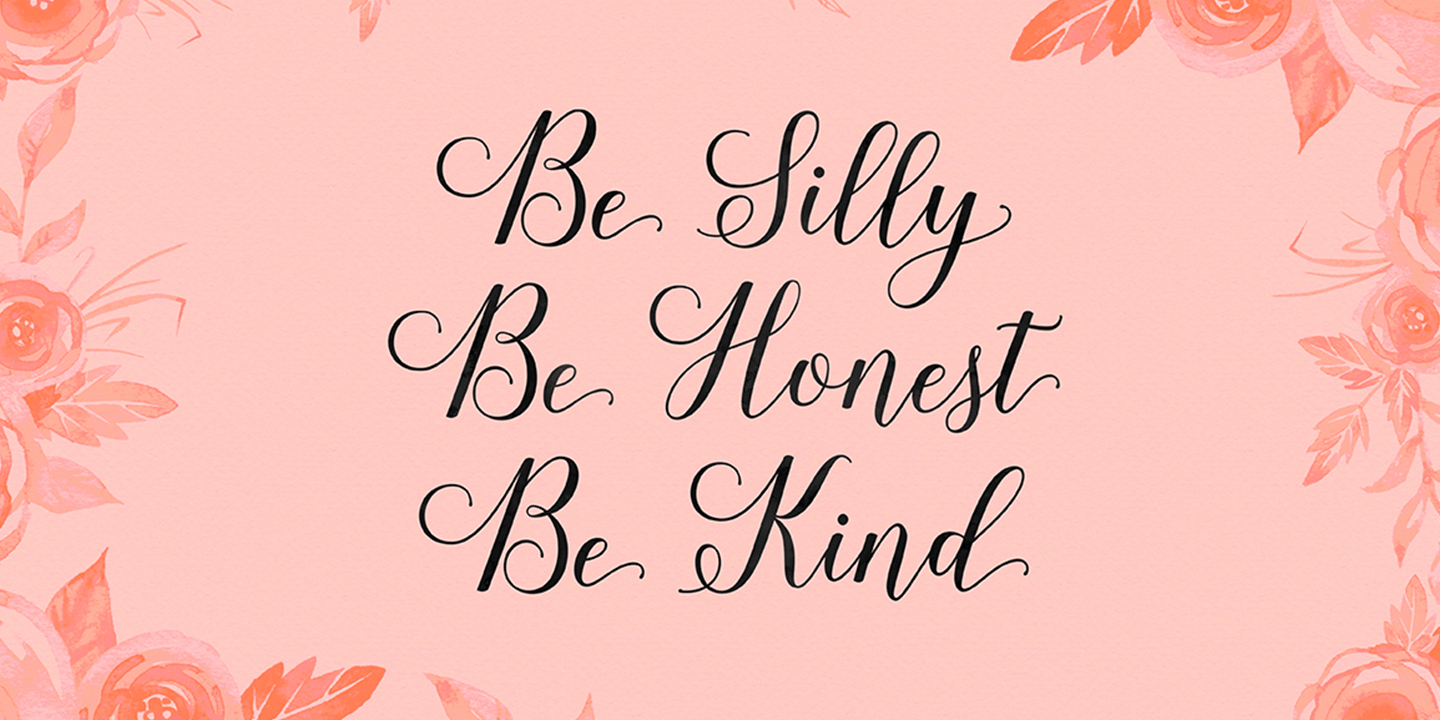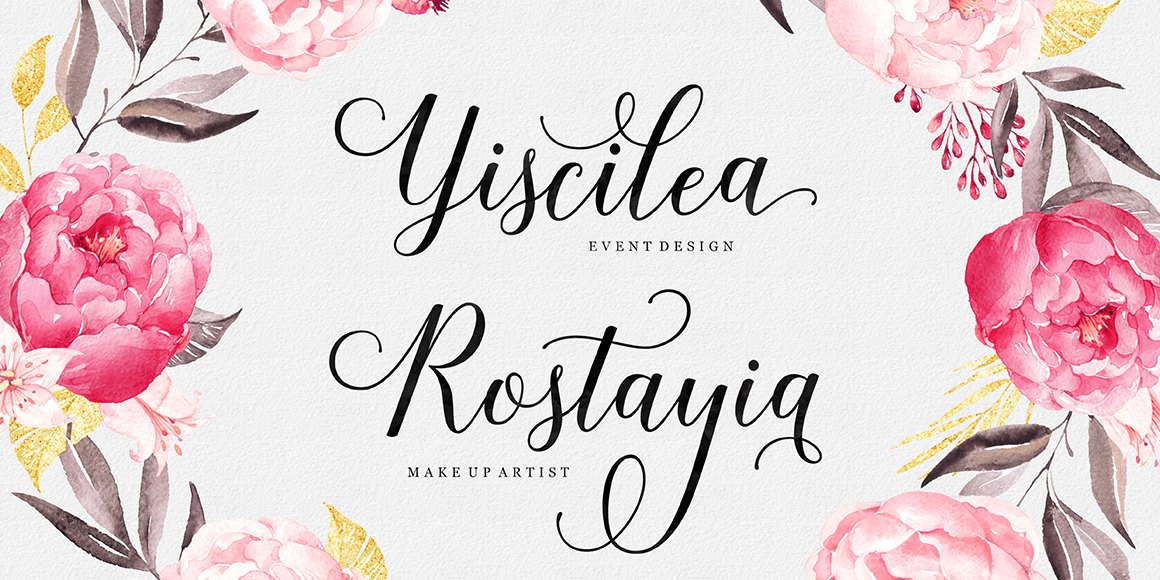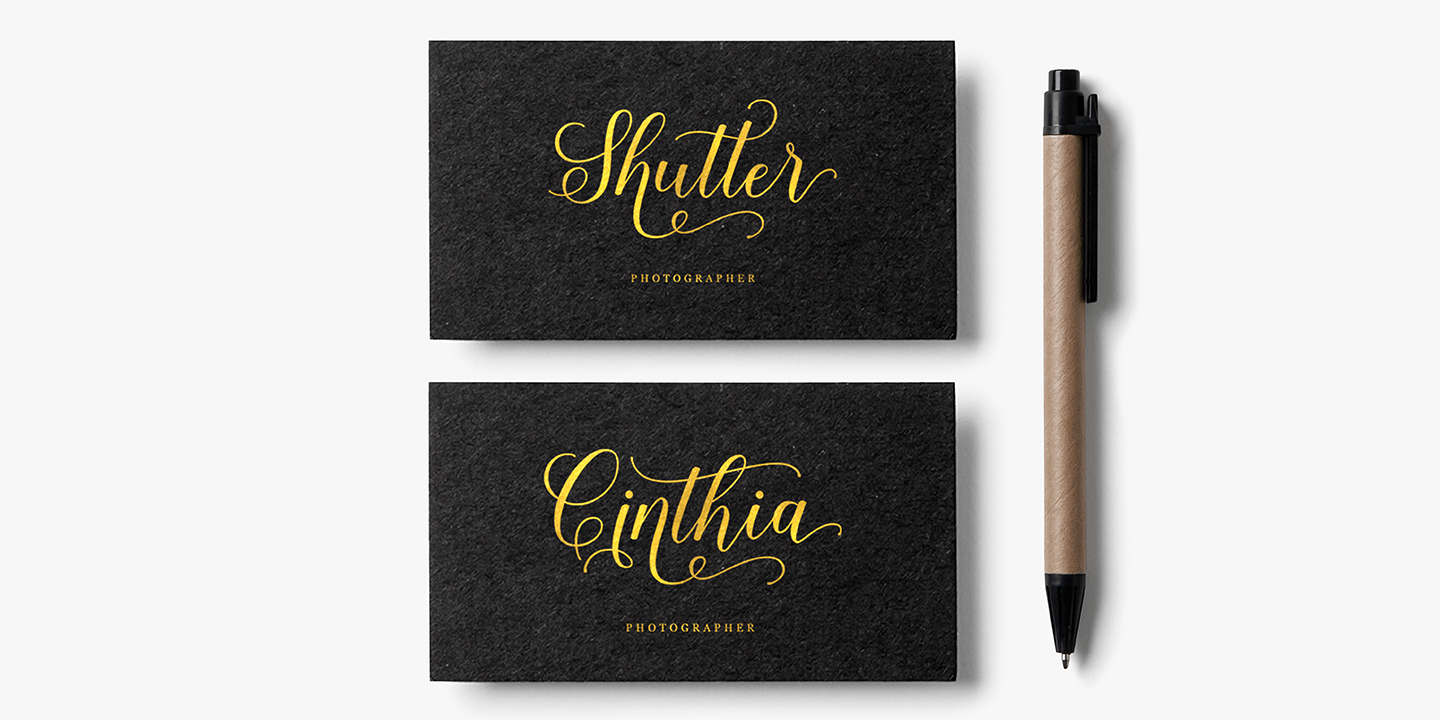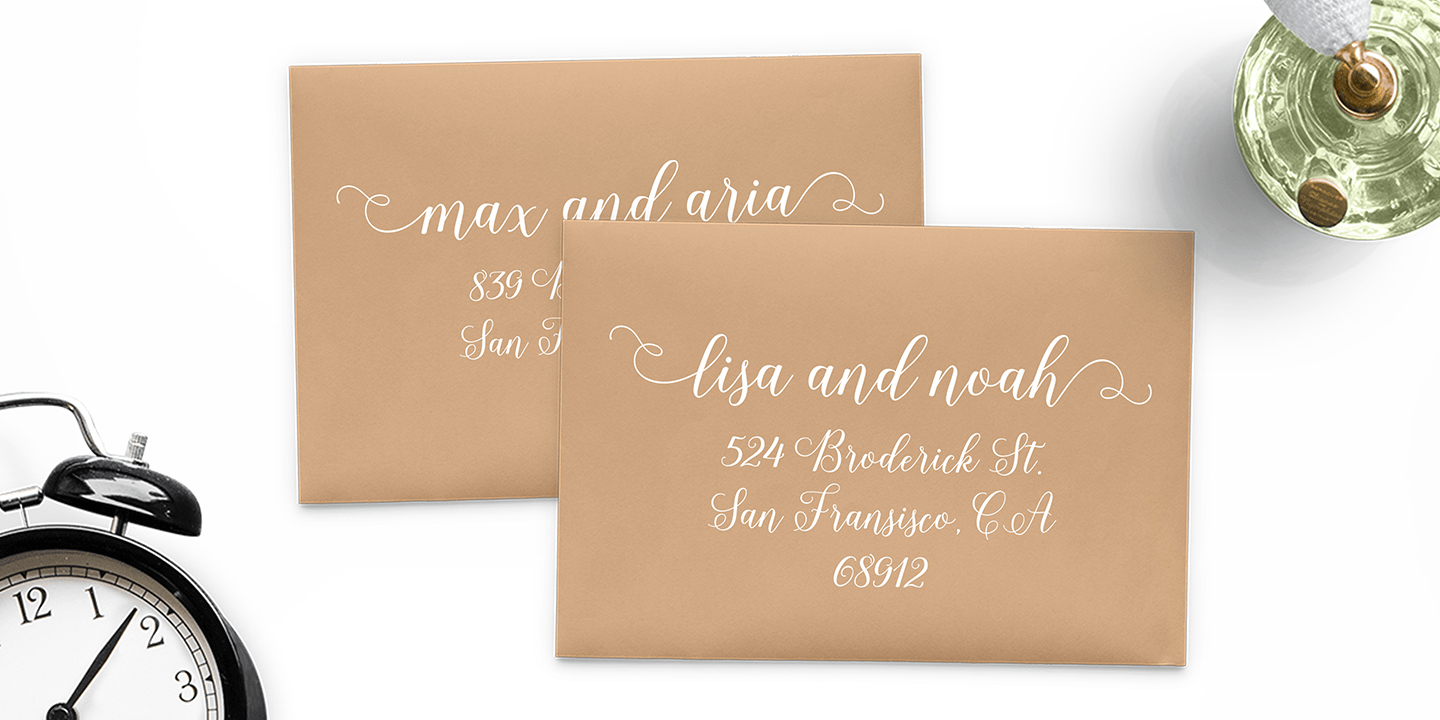
About Shania Script
Shania Script is a modern calligraphy typeface with a free flowing and moving baseline. It has a casual, yet elegant touch. It can be used for various purposes such as logos, wedding invitations, headings, t-shirts, letterheads, signage, labels, news,…